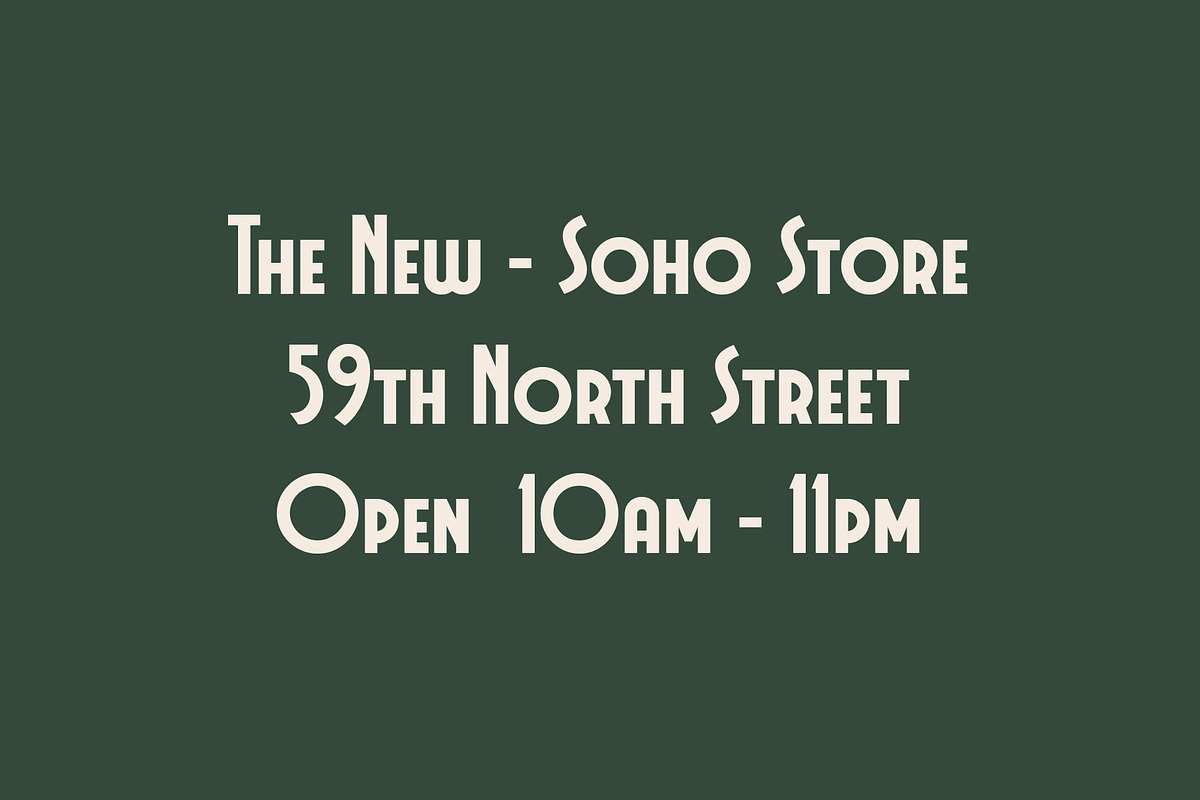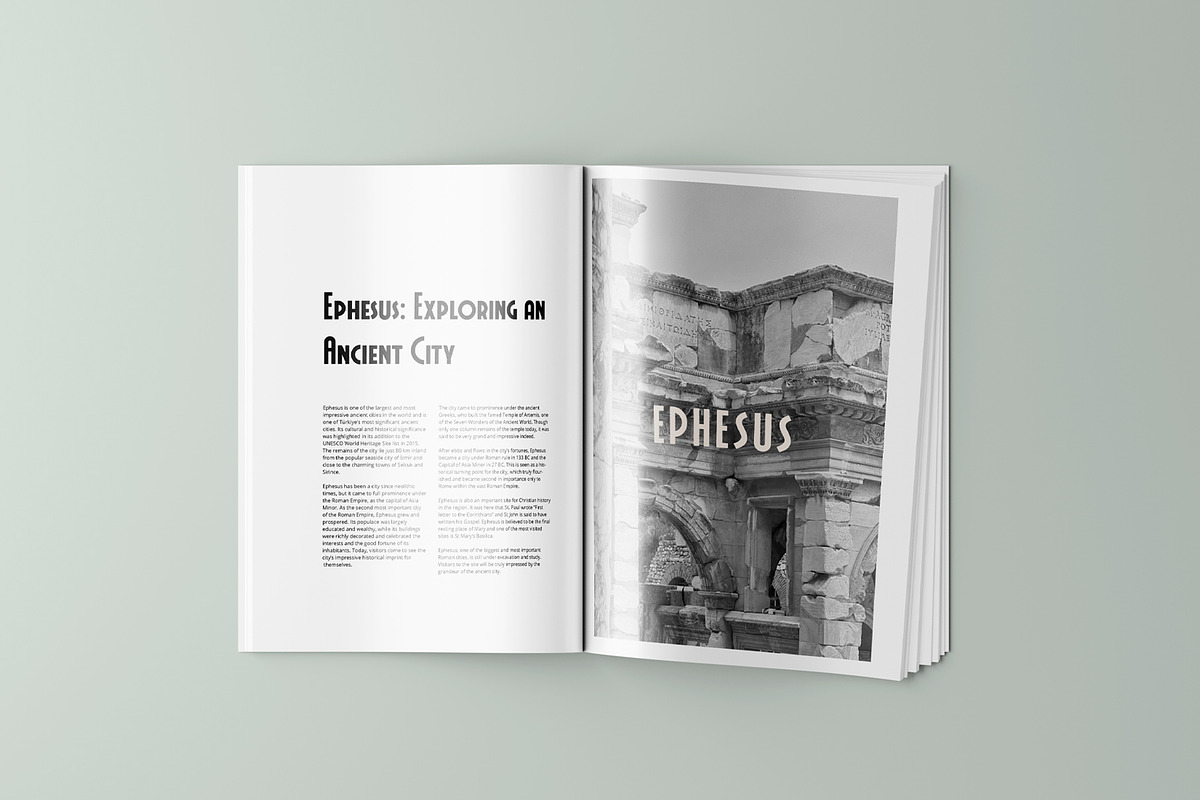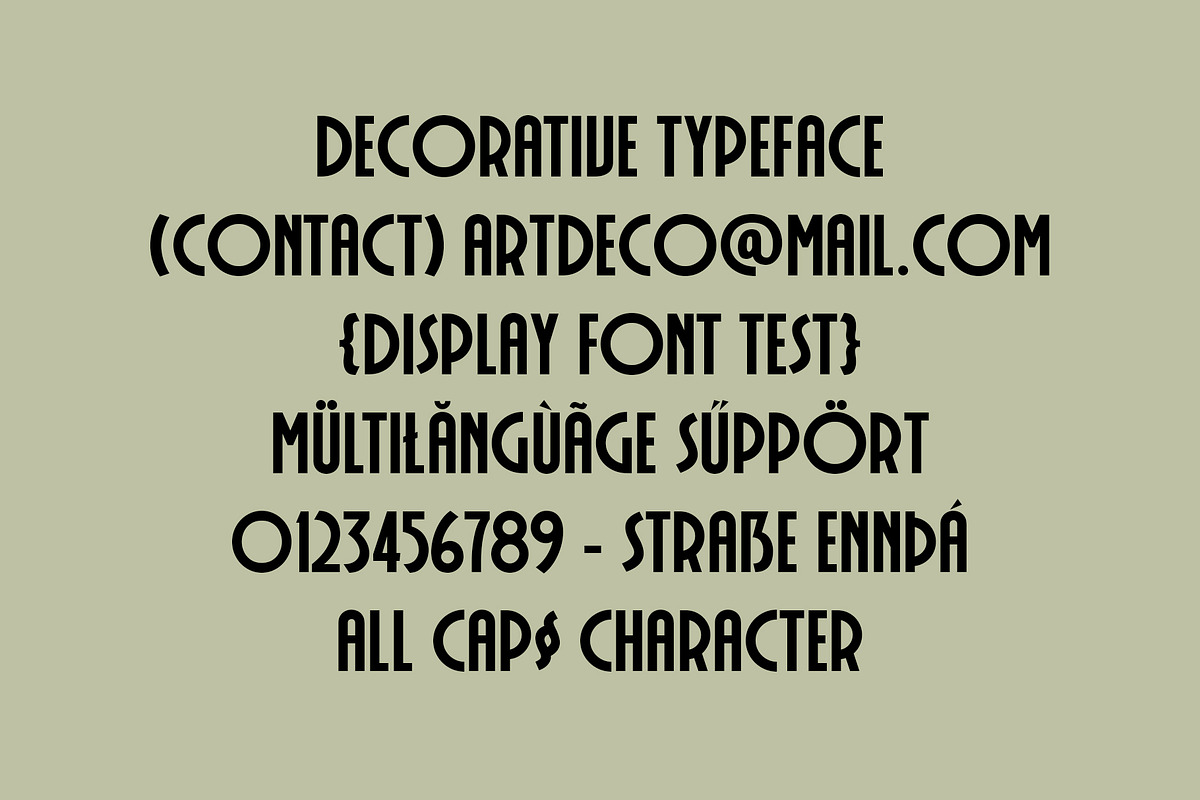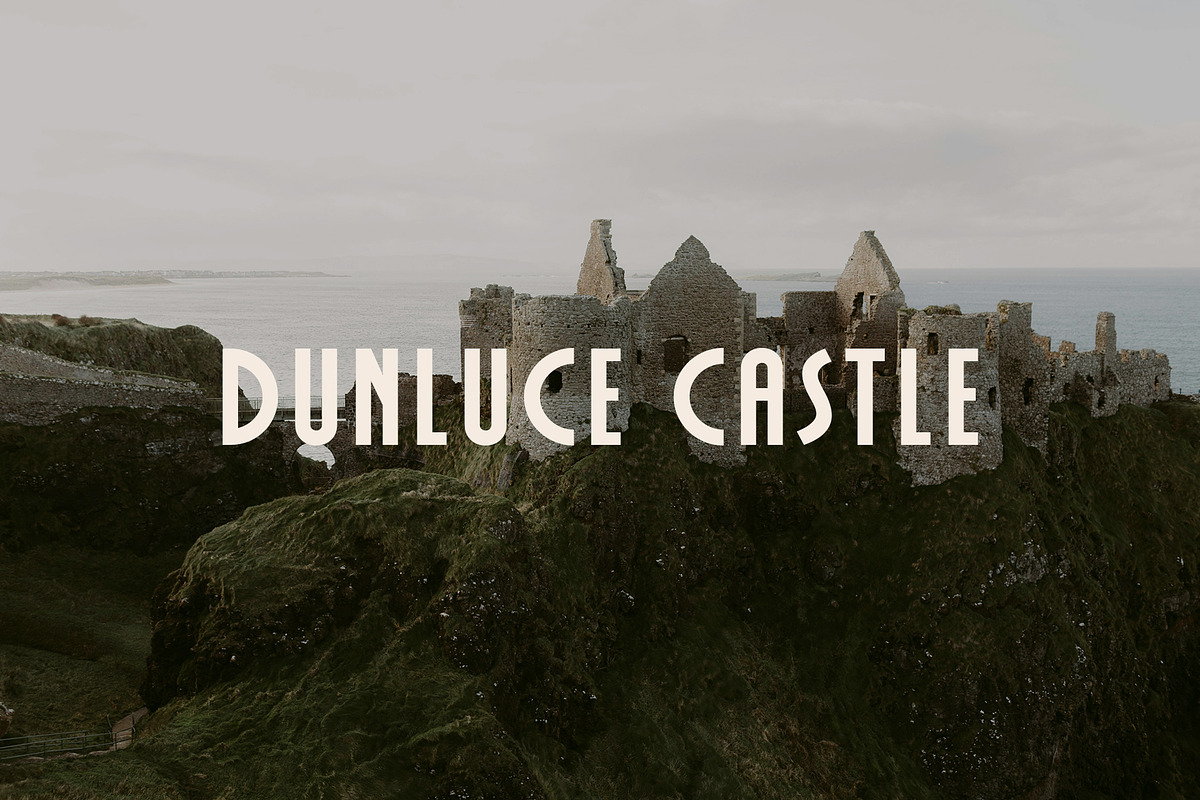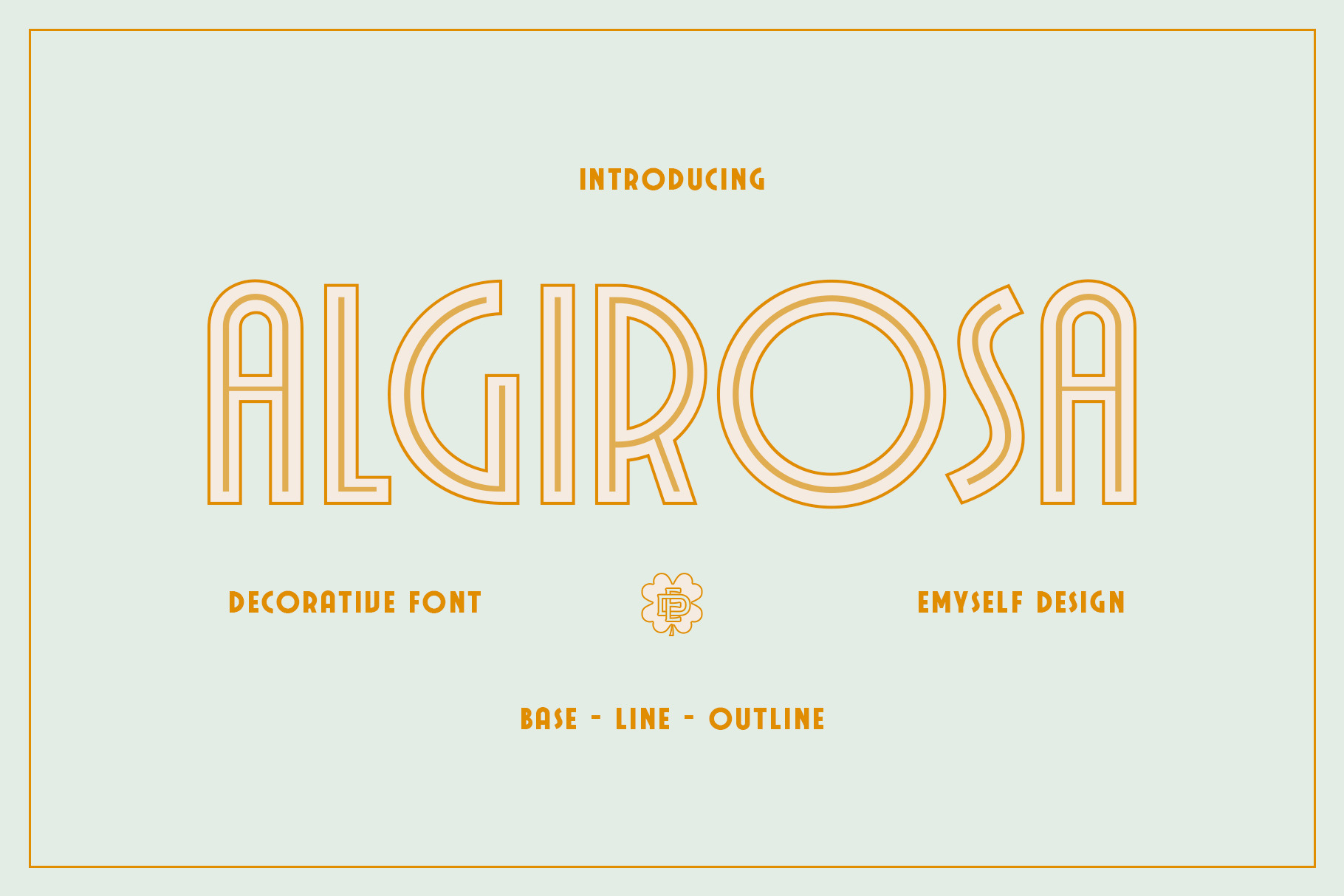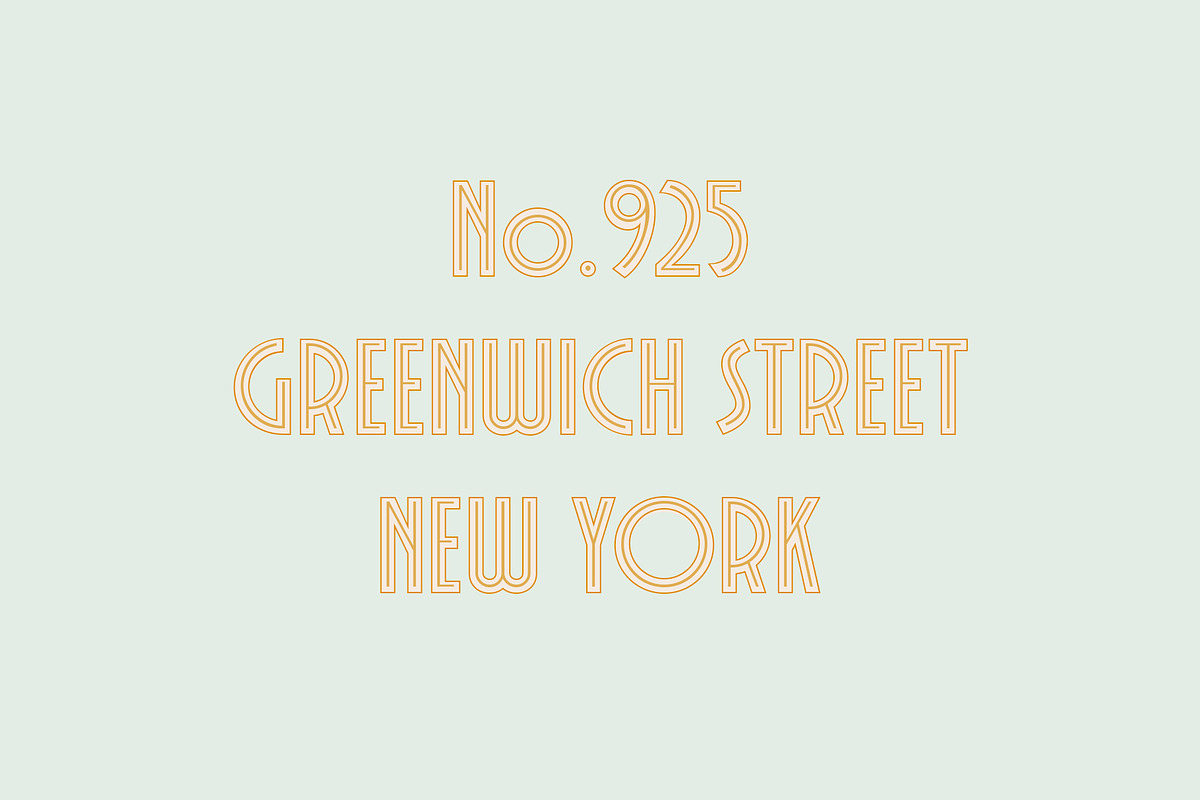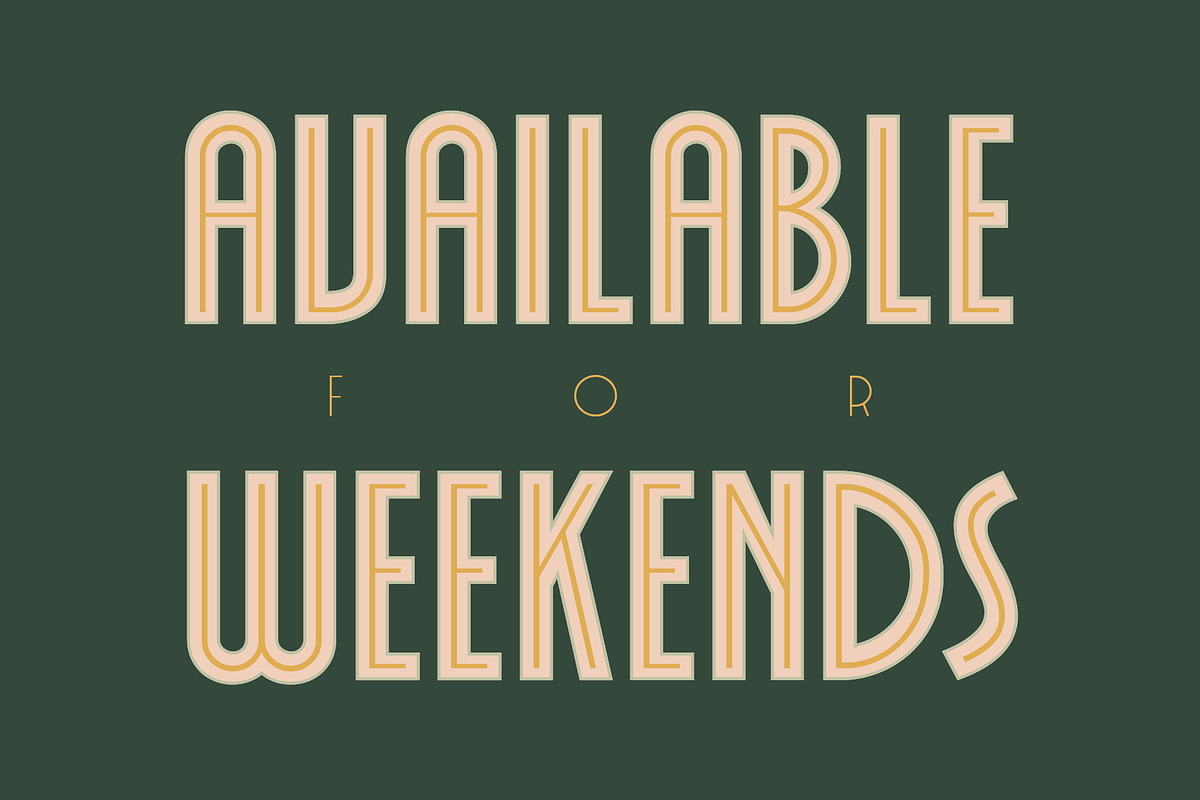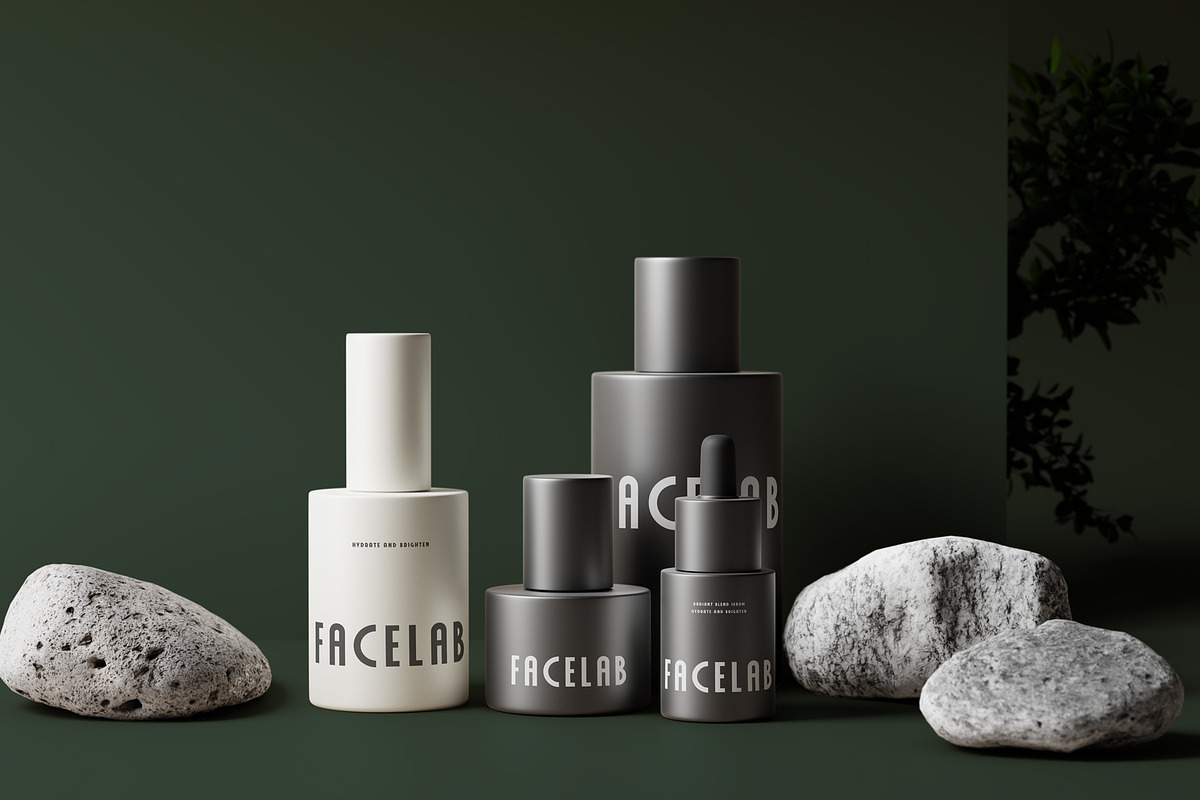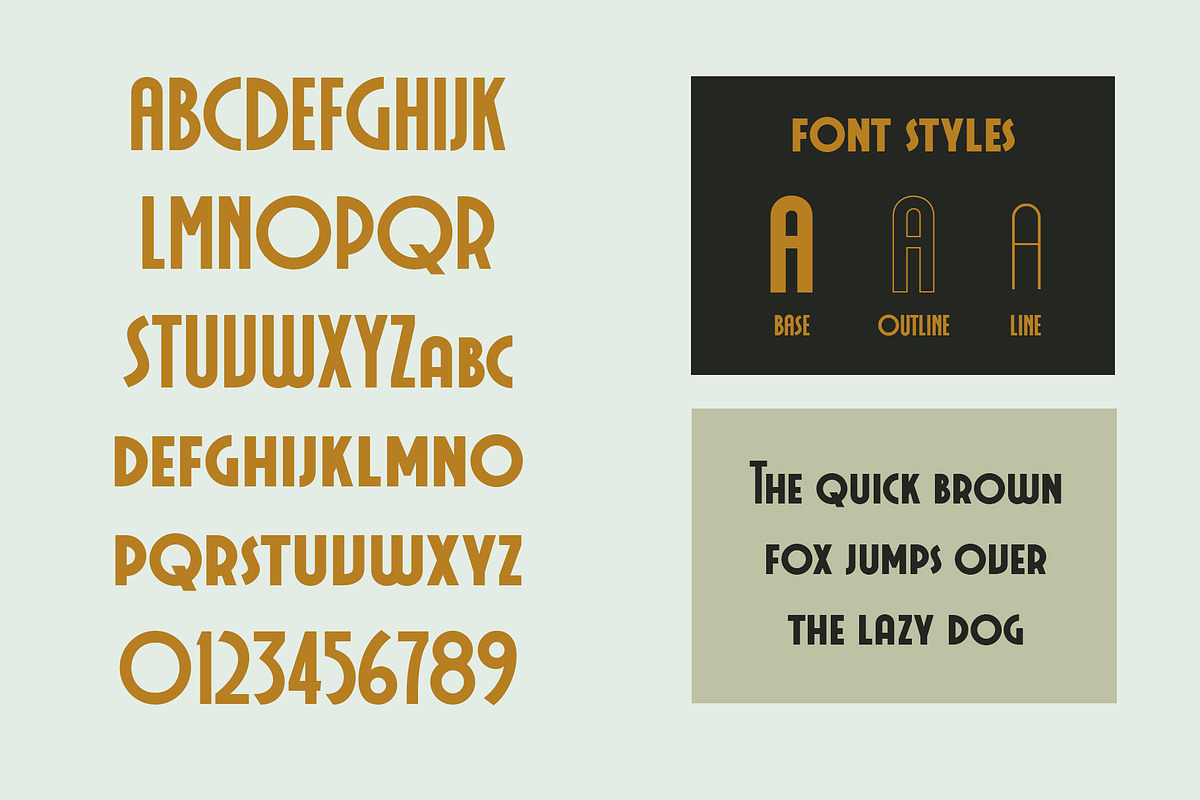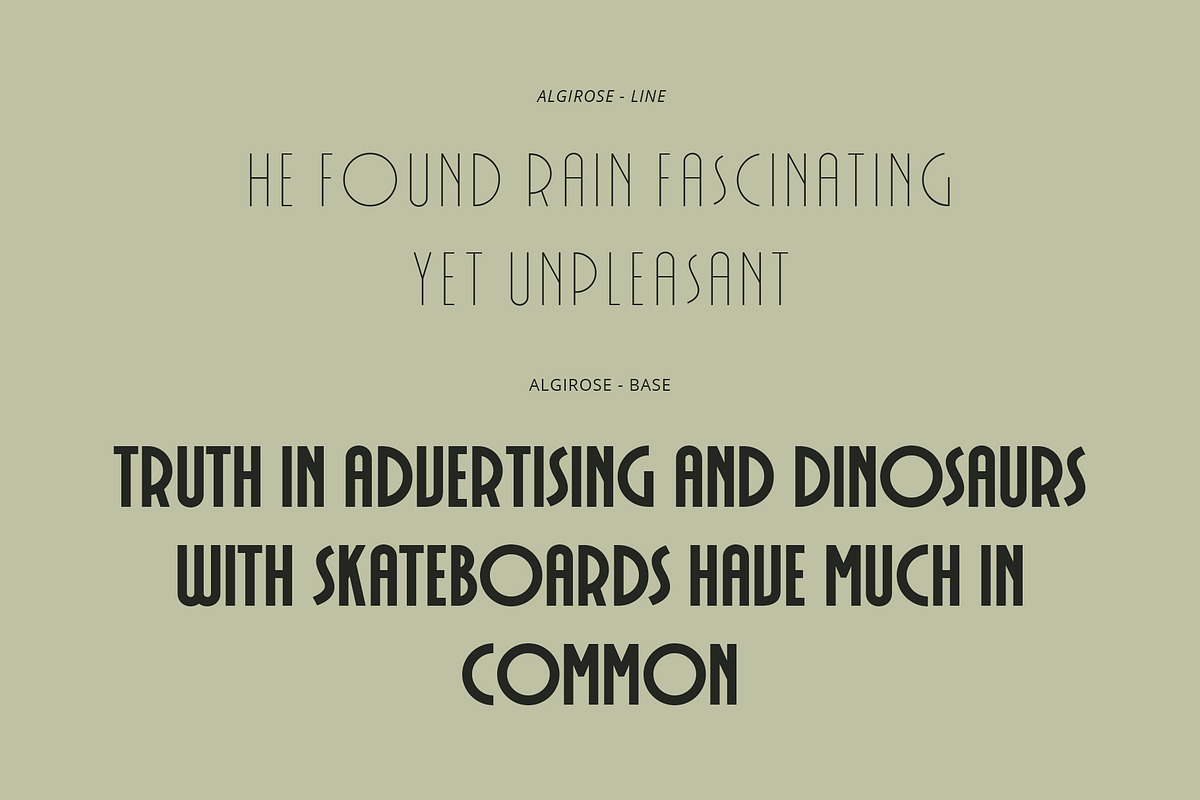
ED Algirosa - Decorative Font
Algirosa is a display font that brings a classic vintage feel with a modern touch. Designed with three styles ( base, line, and outline), this font offers high flexibility in its use. Its inspiration comes from ".Stone relief by Ricardo Boix, for the Pavilion of the Spanish Republic at the Paris International Exposition (1937) – City Museum. Valencia", which has been reinterpreted into a more attractive font design that is easy to apply in the world of graphic design. With this font, you can create unique and characterful works
This font is perfect for your creative projects such as Logotype, printed quotes, invitations, cards, headers, letterheads, Apparel, Web design, magazines, books, etc.